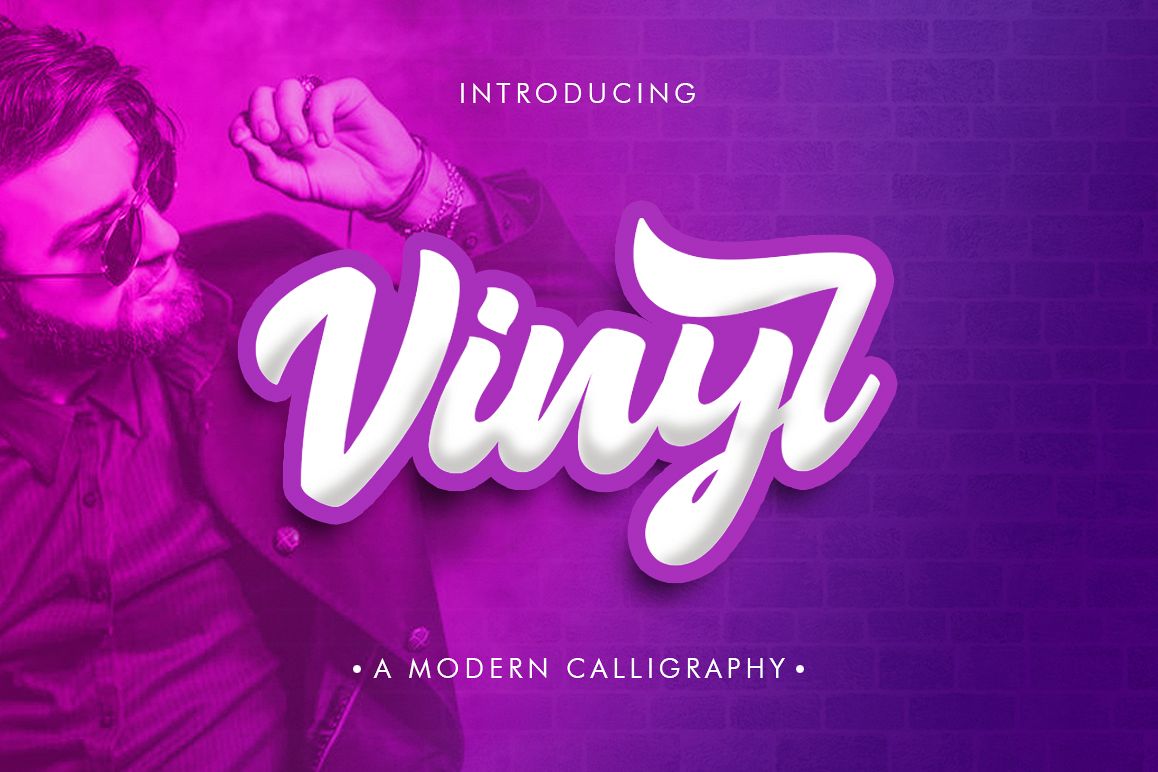
Vinyl Script Font is a fun bold script font, fresh & modern style . Vinyl Script Font suitable for logo, branding, greeting card, poster and any design that you create. Files included: